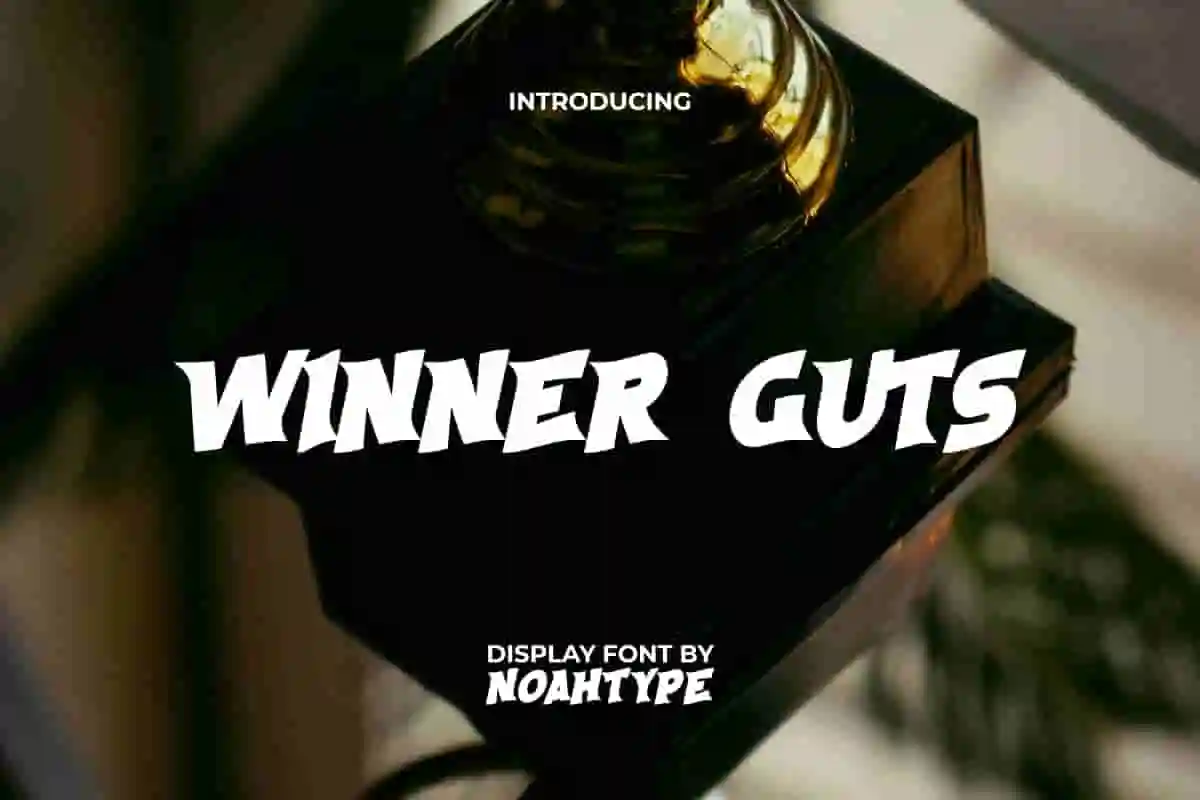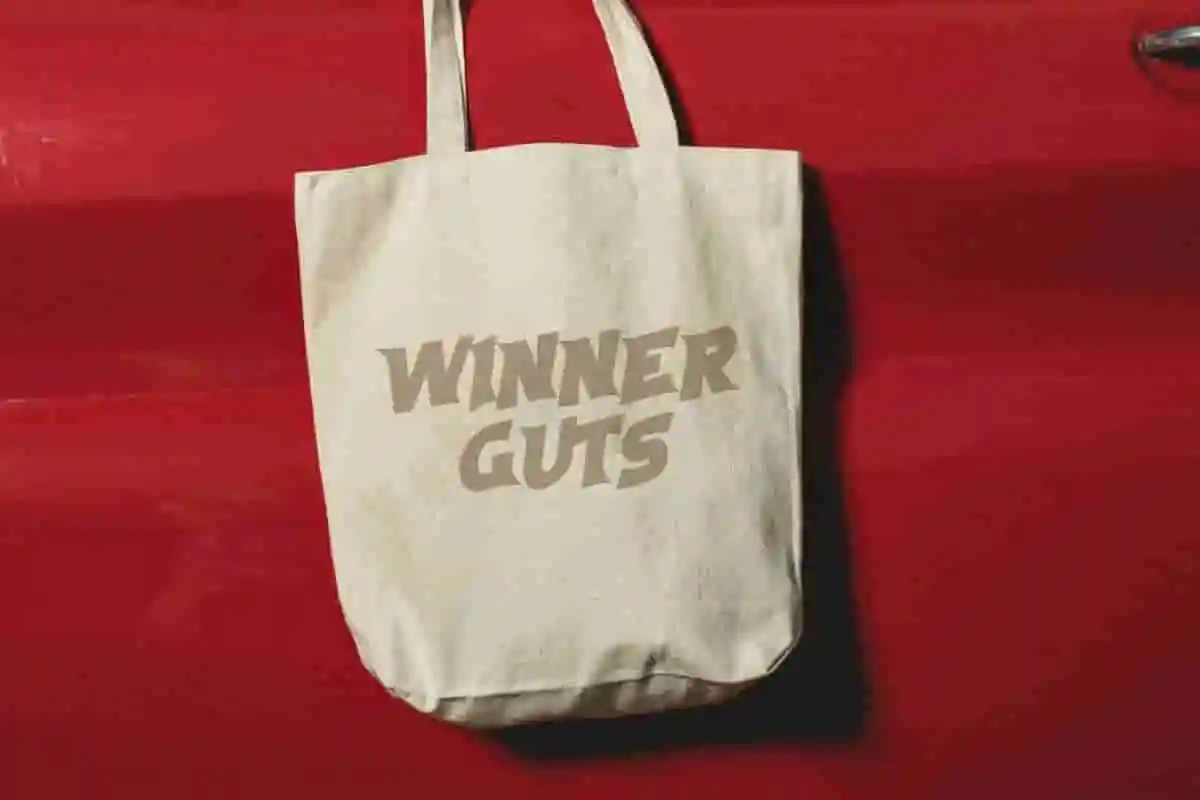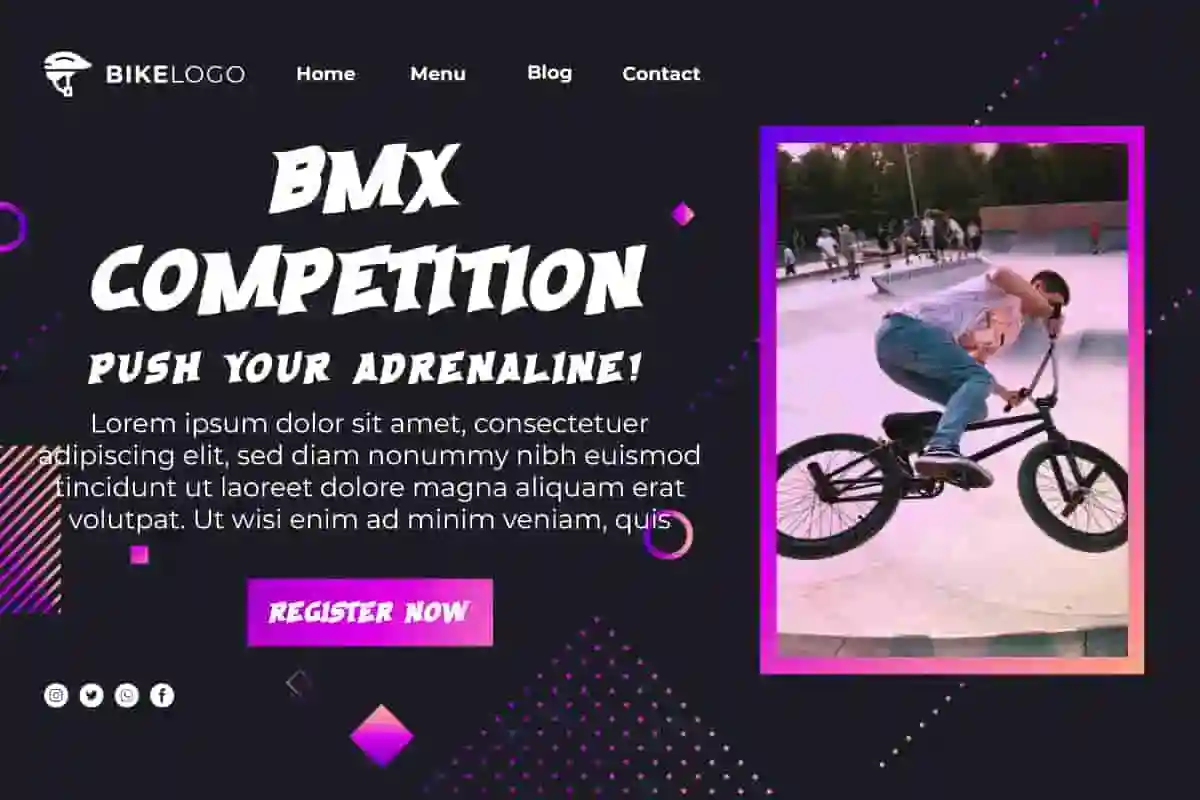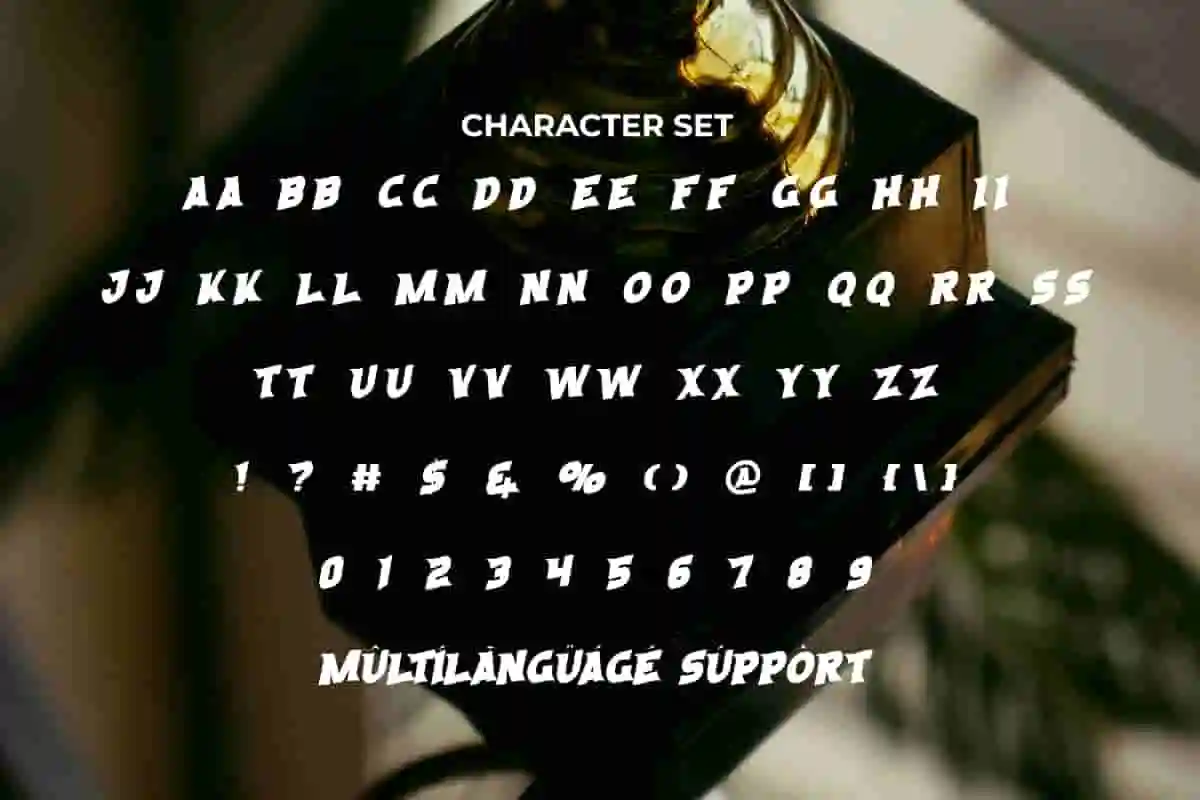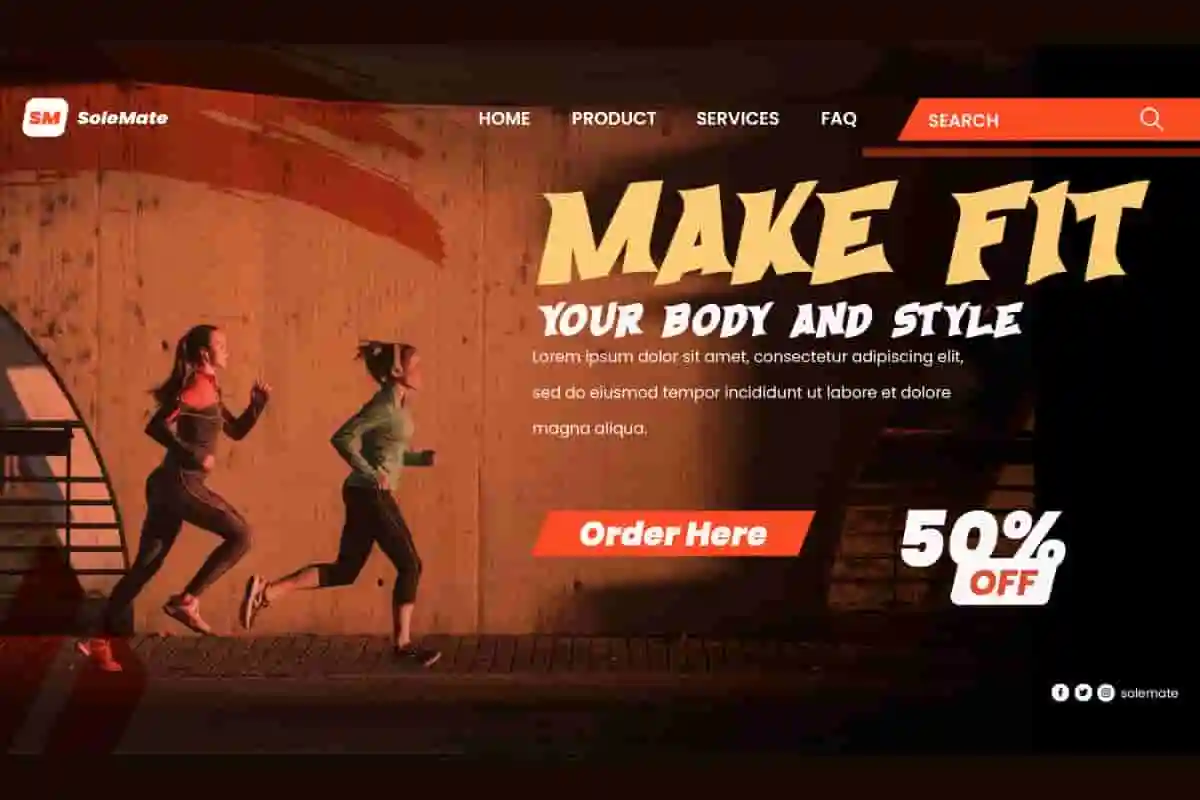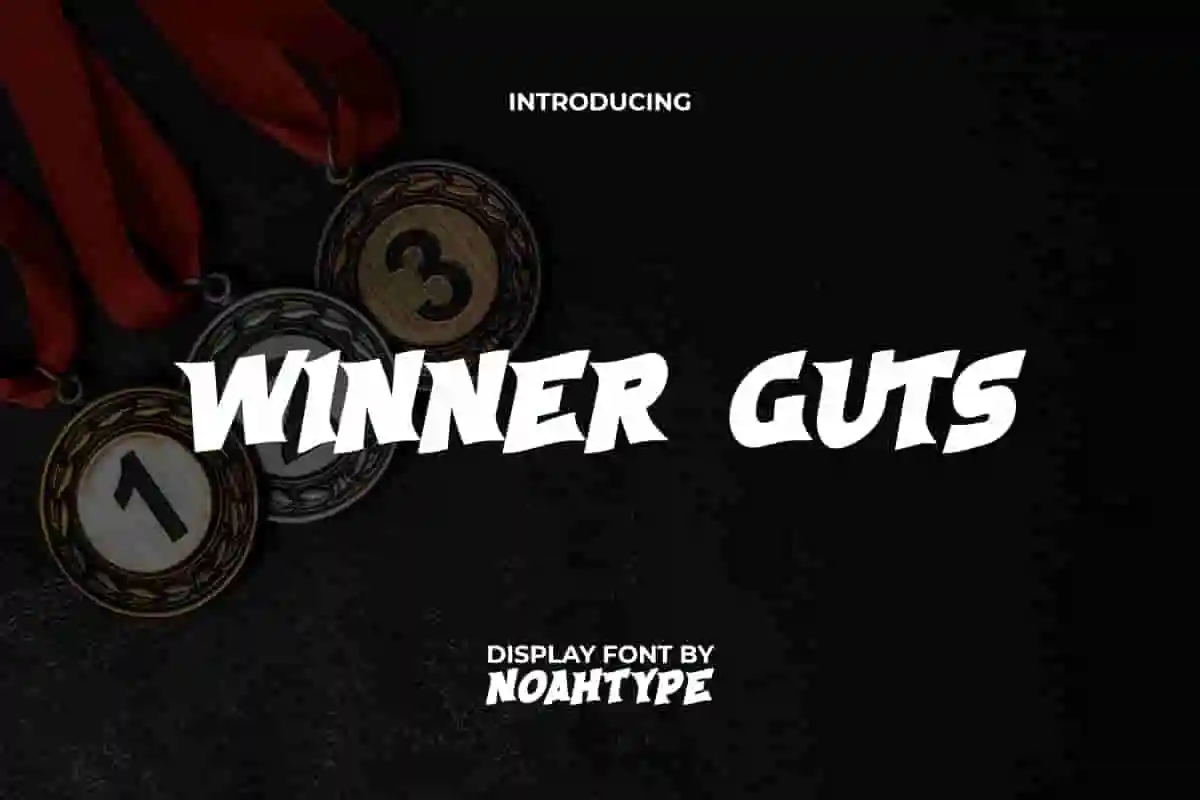
Winner Guts Font is a sporty casual yet fun display font. This font has a cool style and can support your design with any stylish concept. It will be good for any designs, such as brand image, custom design, invitation, label, marketing material, poster, product packaging, quotes, signage, stationery, web, and many more!
Winner Guts Font includes a complete set of ALL CAPS for Uppercase and Lowercase Basic Characters, Numerals, Punctuation, and Symbol. This racing font will be a perfect choice for many industries, such as accessories, advertising, automotive, event or festival, fashion, game, printing, publishing, sports, travel, etc.